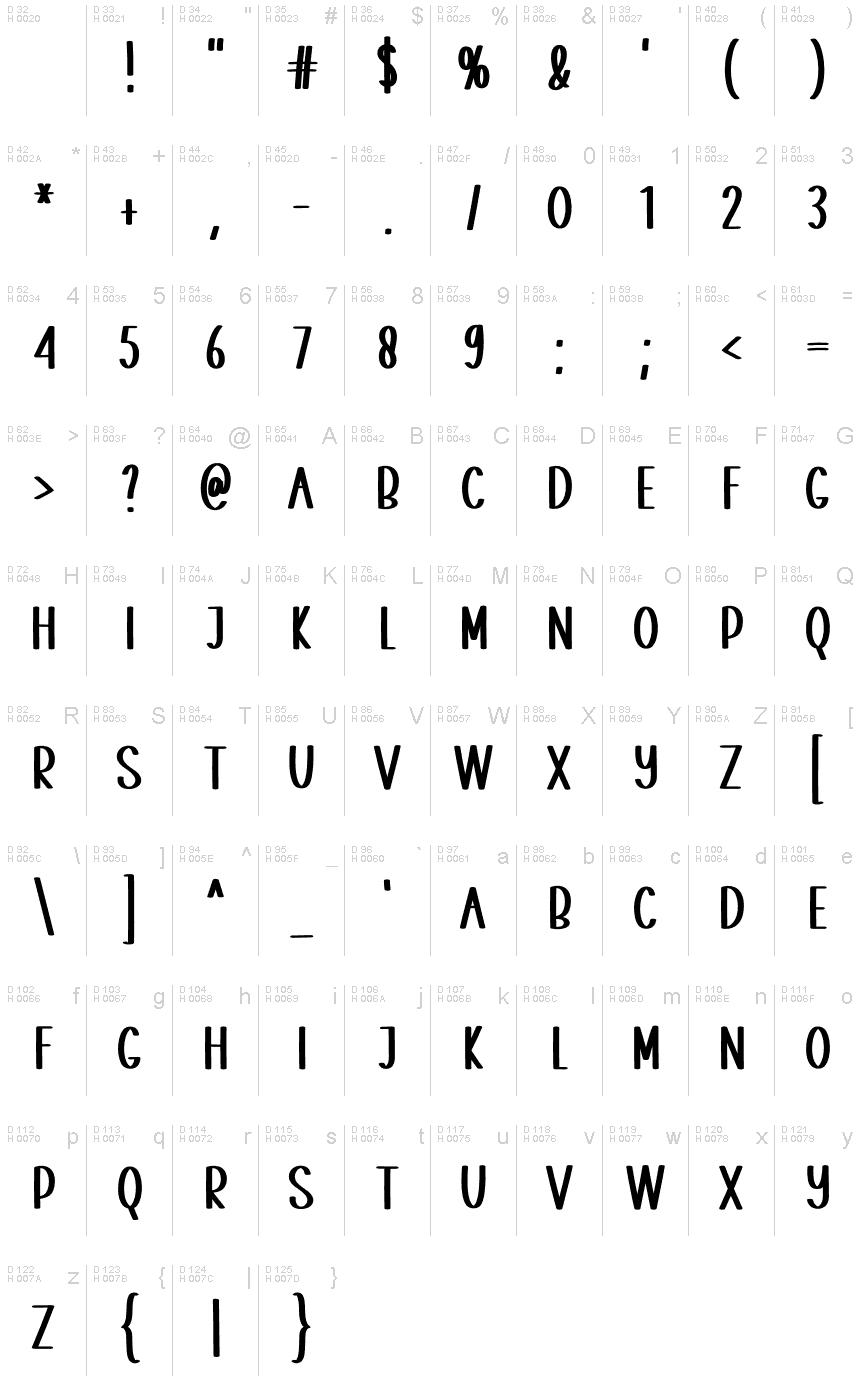
SIMPLE PLANNER
Simple Planner, a delightful creation by Scratchones, is a versatile handwritten font that brings a whimsical touch to your projects. With its comic-style charm and condensed width, this allcaps typeface adds character and flair to any design.
Whether you're crafting invitations for a lively birthday party or creating eye-catching signage for a bustling cafe, Simple Planner's block letters effortlessly captivate attention. Let your imagination run wild as you infuse this playful font into various endeavors – from children's books and greeting cards to brand logos and packaging designs.
Unleash the creative genius within with Simple Planner!
The latest style letters are perfect for wall displays, wedding invitations, social media post logos, advertisements, product packaging, product designs, labels, photography, watermarks, invitations, stationery, and any project that requires taste handwriting.